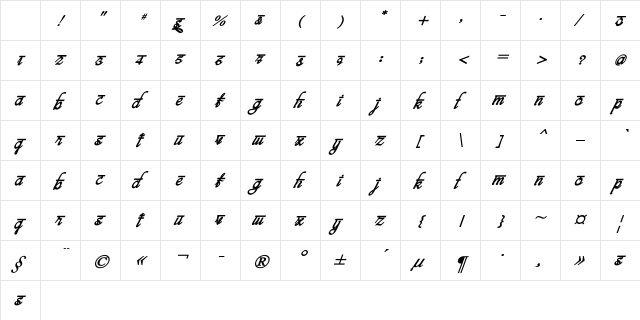
Complete bits indian calligra Regular glyph index. Displaying only characters natively supported by bits indian calligra Regular font.
bits indian calligra is a composed and adaptable typeface that performs quietly and consistently across a wide range of design contexts.